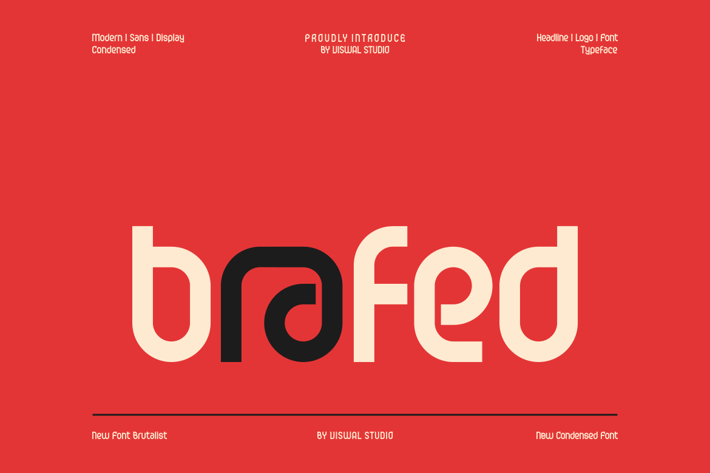
Brafed - Condensed Font
Presenting brafed Is A Sans Display Font.
Can Make It Easier To Convey The Message In Your Design. Font Is Suitable For Logo, Labels, Badge, Branding, Magazine, Poster, Title, Gigs, Covers And Etc. Our Fonts Have Uppercase & Lowercase, Numeral & Punctuation, And Opentype Features. For Amazing Designs You Can Mix With Other Fonts As A Complement.